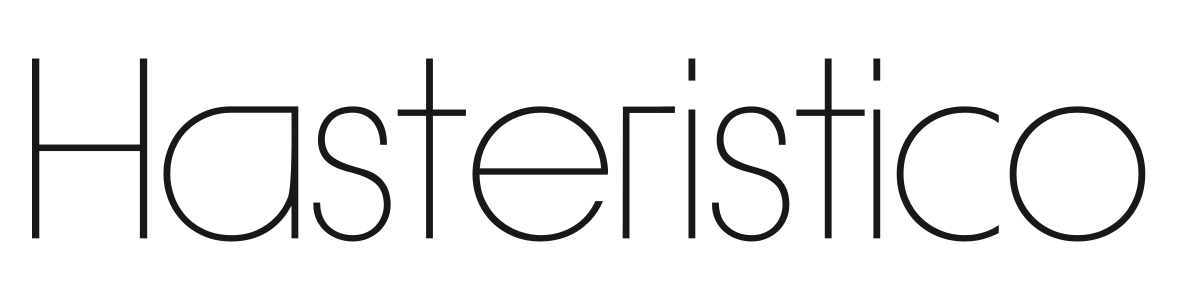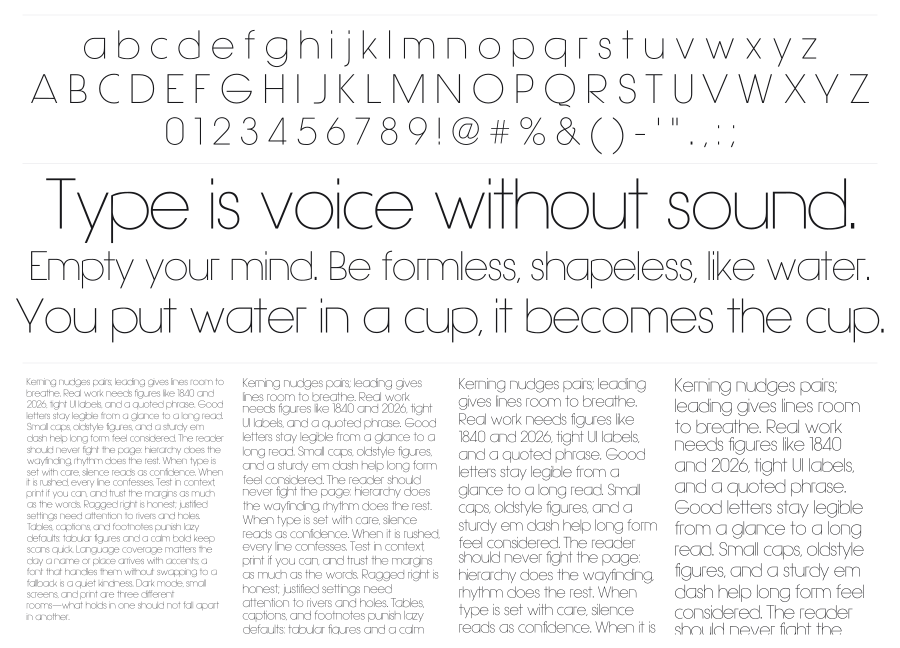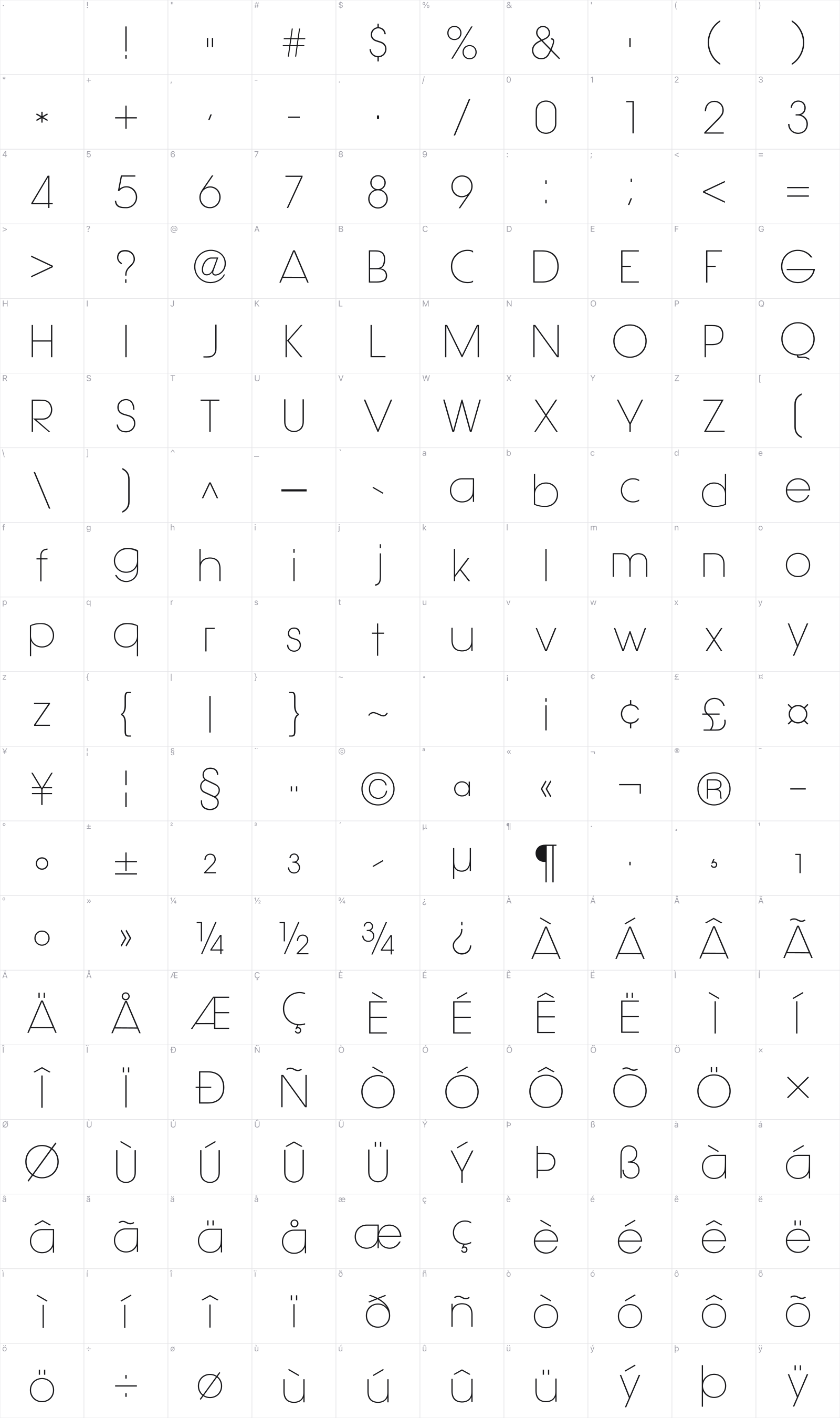
Hasteristico
Hasteristico is an ultralight geometric sans-serif built on nearly perfect circular forms and gossamer-thin strokes. The extreme lightness and open apertures give it an airy, high-fashion quality that works beautifully at large sizes. It suits branding, editorial headlines, and packaging where elegance and restraint are the point.